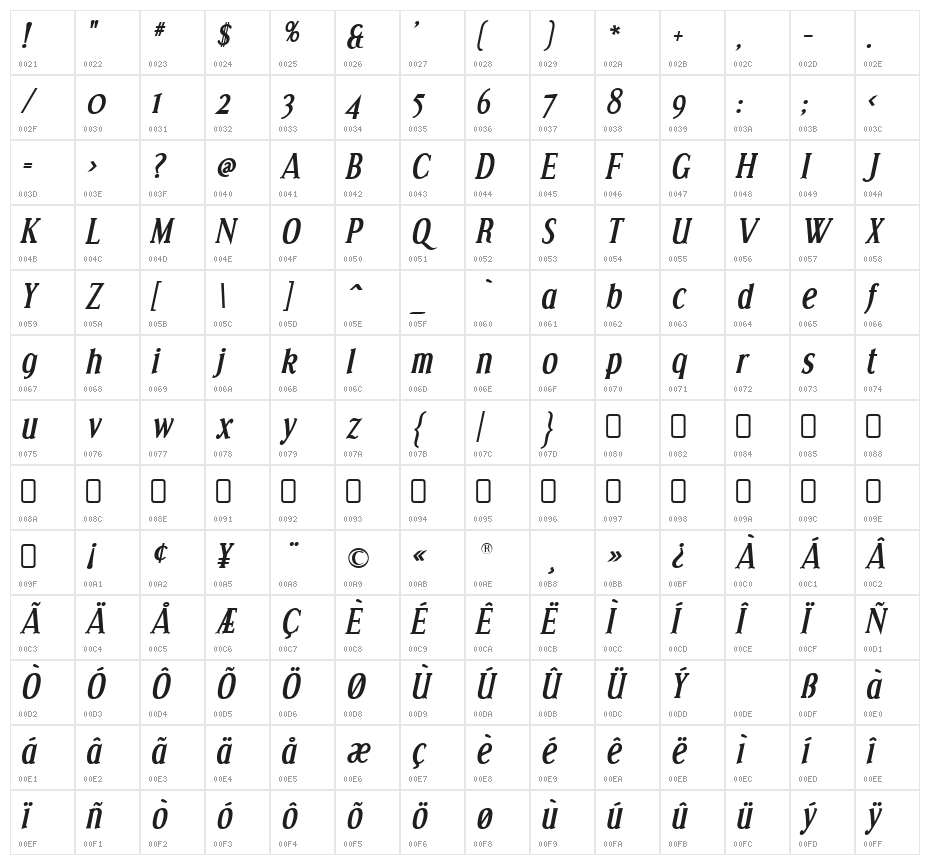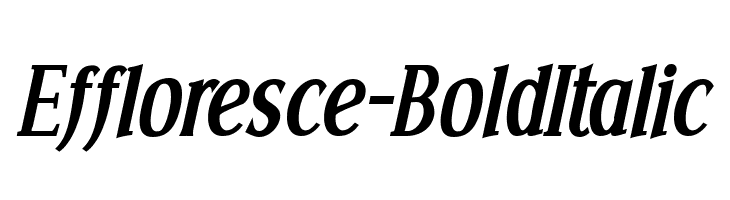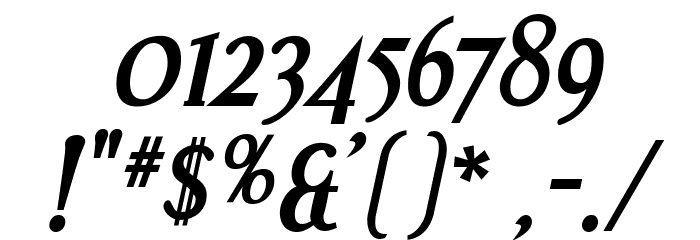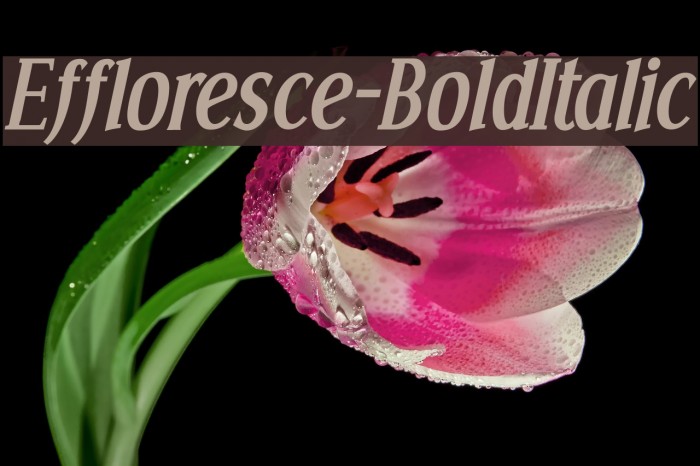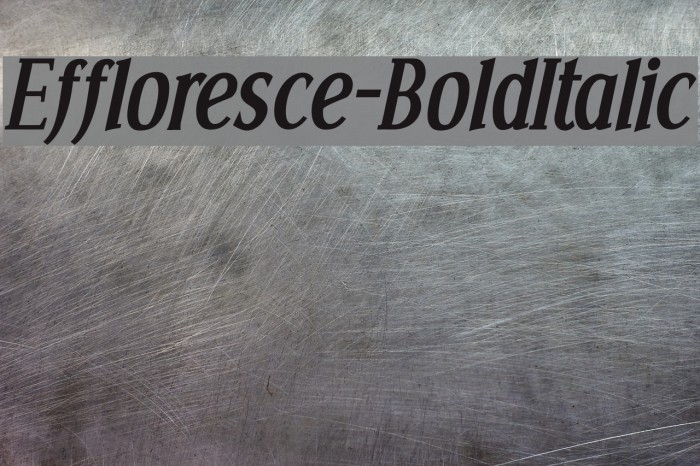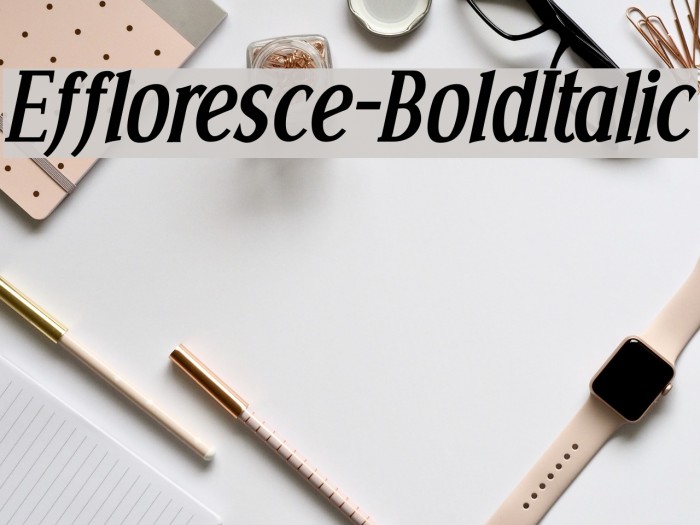
Effloresce-BoldItalic Font
Effloresce-BoldItalic Description
This font features a bold and italicized style, combining a sense of strength with elegance. The characters are slightly slanted, giving a dynamic and forward-moving appearance. The strokes are thick and consistent, providing a strong visual impact. The serifs are pronounced, adding a touch of classic sophistication. The overall design is clean and legible, making it suitable for various applications where emphasis is needed. The numerals and special characters maintain the same bold and italicized characteristics, ensuring uniformity across all text elements.
| Overall Style | Classic |
| Proposed Projects | Ideal for headlines, branding, posters, and any design requiring a strong, elegant emphasis. |